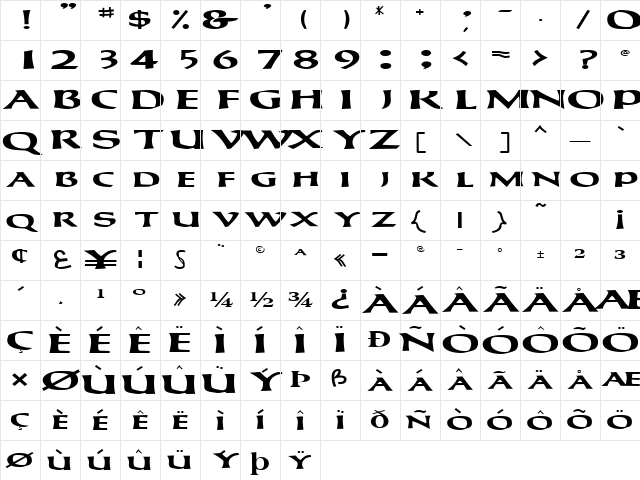
CayaugaSCapsSSK Bold Free Font
CayaugaSCapsSSK Bold
CayaugaSCapsSSK Family
Design Context for CayaugaSCapsSSK
CayaugaSCapsSSK is a composed and adaptable typeface that performs quietly and consistently across a wide range of design contexts. Its bold stroke weight gives it real presence on the page.